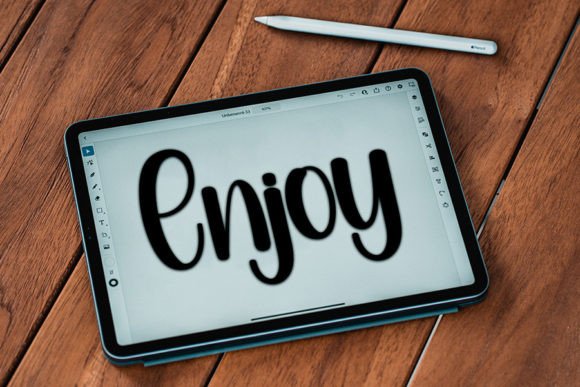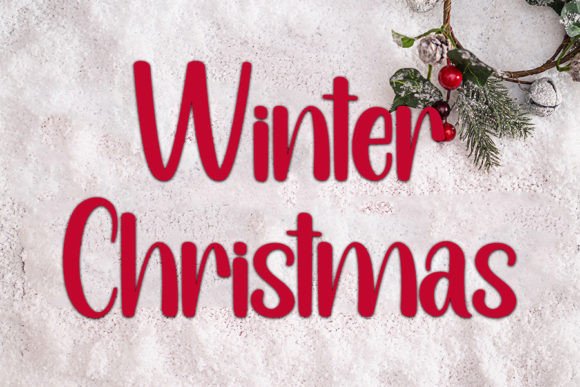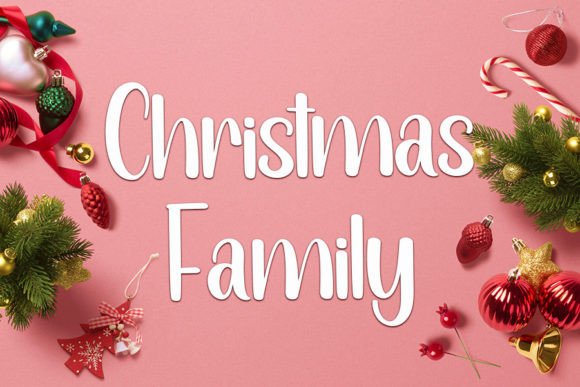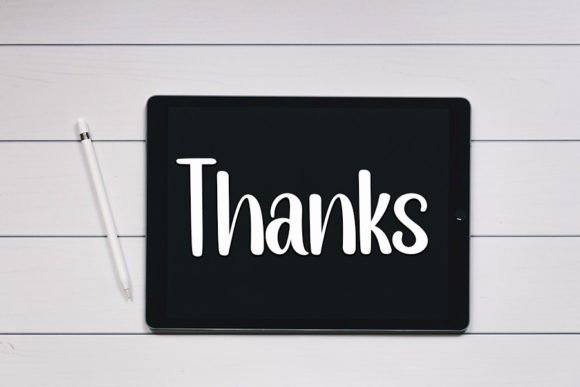
Introducing Happy Santa Font: The Perfect Addition to Your Design Collection
Are you tired of using the same old fonts for your design projects? Look no further than the Happy Santa Font, a beautiful and elegant handwritten font that’s sure to add a touch of magic to your creations. With its incredibly distinct and timeless style, this font is perfect for designers and crafters looking to create spectacular designs that stand out from the crowd.
The Characteristics of Happy Santa Font
So, what makes Happy Santa Font so special? For starters, it’s a handwritten font that’s been carefully crafted to exude an air of elegance and sophistication. The letters are fluid and cursive, with a natural flow that’s reminiscent of traditional calligraphy. The font is also highly legible, making it perfect for use in a variety of design applications, from greeting cards and invitations to posters and social media graphics.
The Benefits of Using Happy Santa Font
There are many benefits to using Happy Santa Font in your design projects. Here are just a few:
- Elegant and sophisticated: Happy Santa Font has a timeless elegance that’s sure to add a touch of class to your designs.
- Highly legible: The font is easy to read, even at small sizes, making it perfect for use in a variety of design applications.
- Versatile: Happy Santa Font can be used in a wide range of design projects, from formal events to casual social media graphics.
- Unique: With its incredibly distinct style, Happy Santa Font is sure to help your designs stand out from the crowd.
How to Use Happy Santa Font in Your Designs
Using Happy Santa Font in your designs is easy. Here are a few tips to get you started:
- Pair it with bold colors: Happy Santa Font looks amazing when paired with bold, bright colors. Try using it with a bold red or green to create a festive holiday design.
- Use it for headings: Happy Santa Font is perfect for use in headings and titles. Try using it to add a touch of elegance to your blog posts or social media graphics.
- Experiment with different sizes: Happy Santa Font looks great at a variety of sizes. Try using it in large headings or smaller body text to create a visually interesting design.
Happy Santa Font is perfect for designers and crafters looking to add a touch of elegance to their projects. Whether you’re creating holiday cards, gift tags, or social media graphics, this font is sure to help you create spectacular designs that stand out from the crowd.
In conclusion, Happy Santa Font is a beautiful and elegant handwritten font that’s perfect for designers and crafters looking to create spectacular designs. With its highly legible and versatile style, this font is sure to add a touch of magic to your projects. So why wait? Download Happy Santa Font today and start creating!